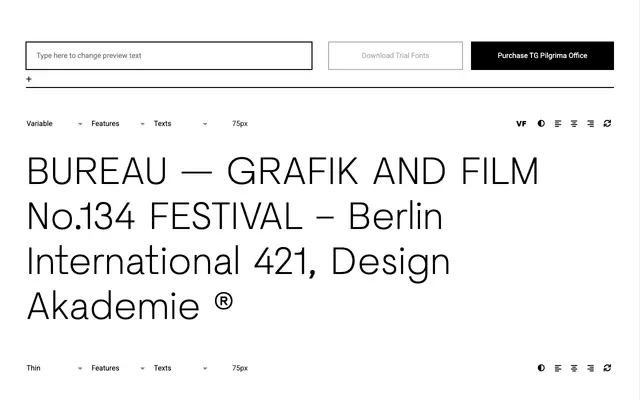
TG Pilgrima Office
Tegamitype · Iqbal Firdaus · 2025
A clean modern sans in nine weights with matching italics and variable font support, evolved from the structural framework of TG Neuramatica.
Designed by Iqbal Firdaus at Tegamitype, TG Pilgrima Office spans 18 styles across nine weights from Thin to Black, each with a true italic, plus a variable font instance. The family includes a broad Latin character set covering over 100 languages and a full OpenType feature suite including ligatures, alternates and fractions. It is aimed at branding, editorial and digital work where consistent performance across point sizes is a priority.
Described explicitly as a sans serif on the product page, evolved from TG Neuramatica with a clean, modern aesthetic suggesting a geometric or neo-grotesque character suited to digital and print work.